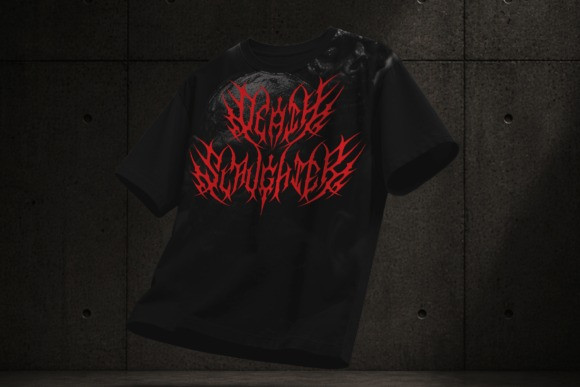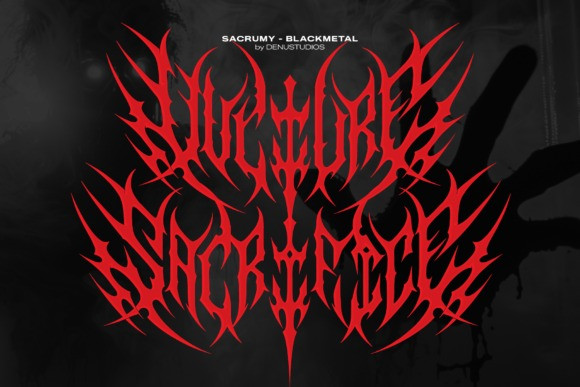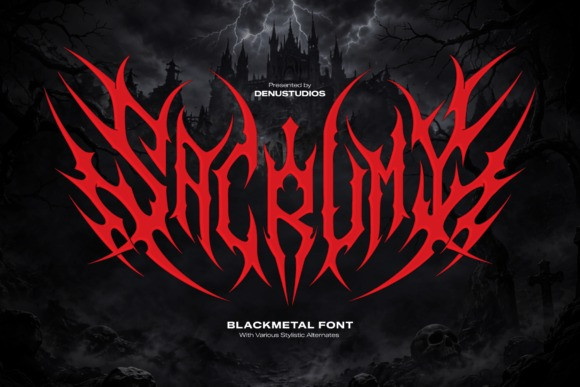
Sacrumy Font
Sacrumy Font an intensely aggressive typeface. Sacrumy is the premier choice for heavy metal album art, underground music festival merchandise, aggressive streetwear capsule logos, dark fantasy video game title screens, skate deck graphic layouts, and rebellious social media titles that demand a loud, hardcore, and entirely uncompromising aesthetic.